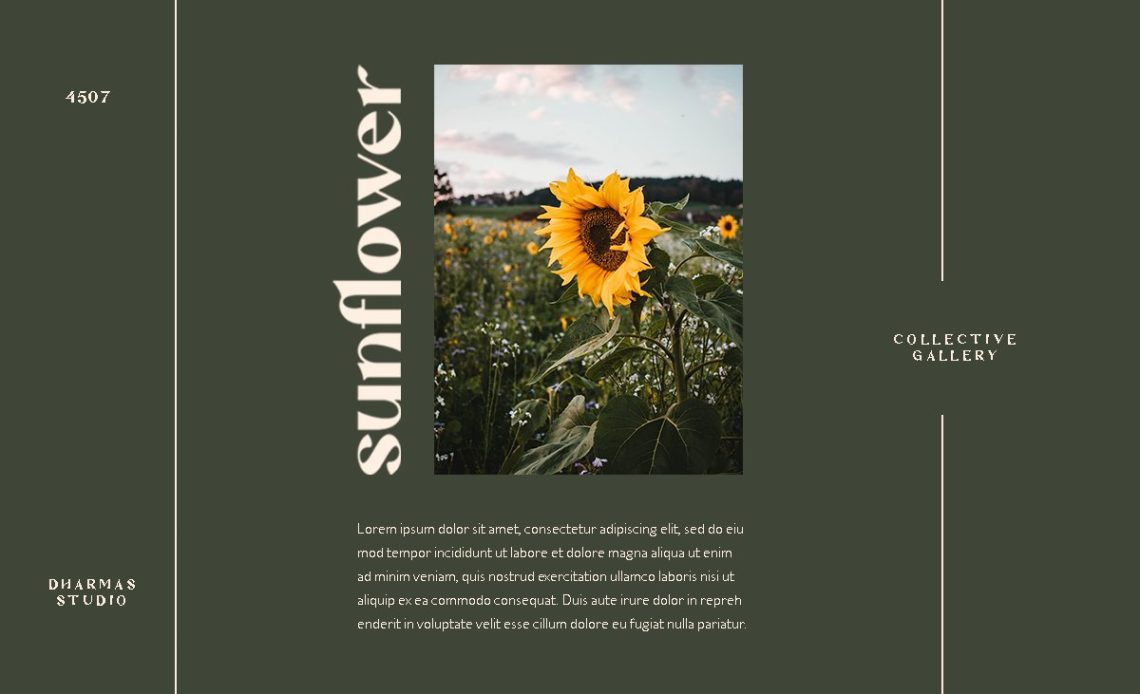
Looking for the perfect font to enhance your medium poster? Look no further than Mattire, the modern serif typeface designed by Dharma Sahestya.
With its stylish, yet classic and minimal design, Mattire is the perfect choice for those seeking a bold, high contrast font that is both elegant and modern. Whether you're designing a magazine header, creating a web layout, or looking for the perfect feminine logo mark, Mattire delivers on all fronts.
What sets Mattire apart from other fonts is its unique combination of classic serif and futuristic sans serif elements. This makes it the perfect fit for modern mood boards and designs.